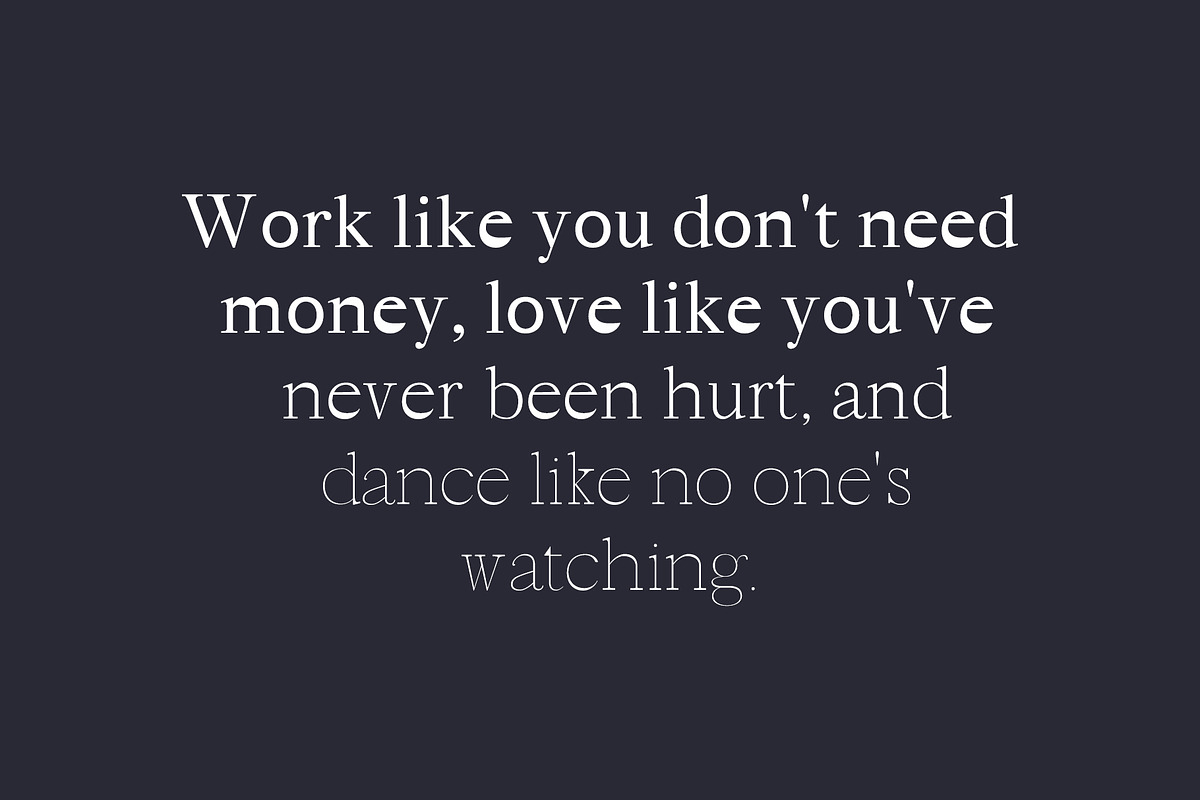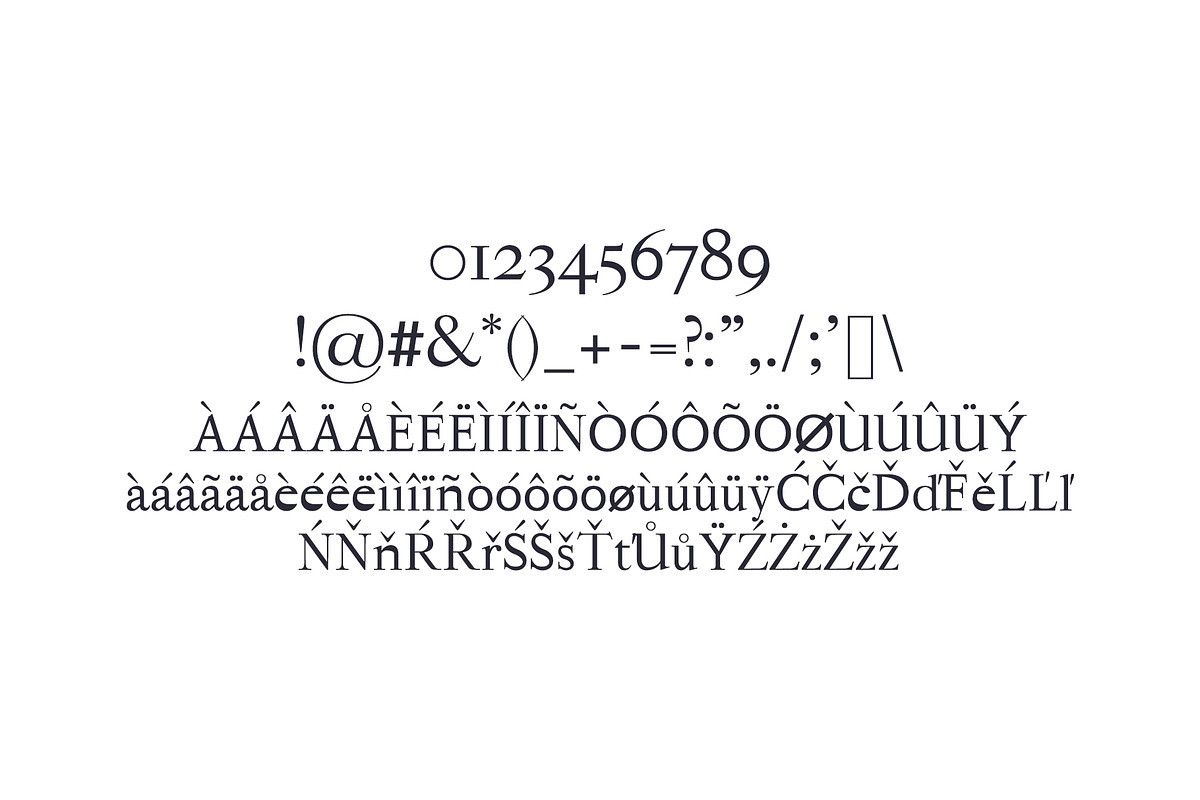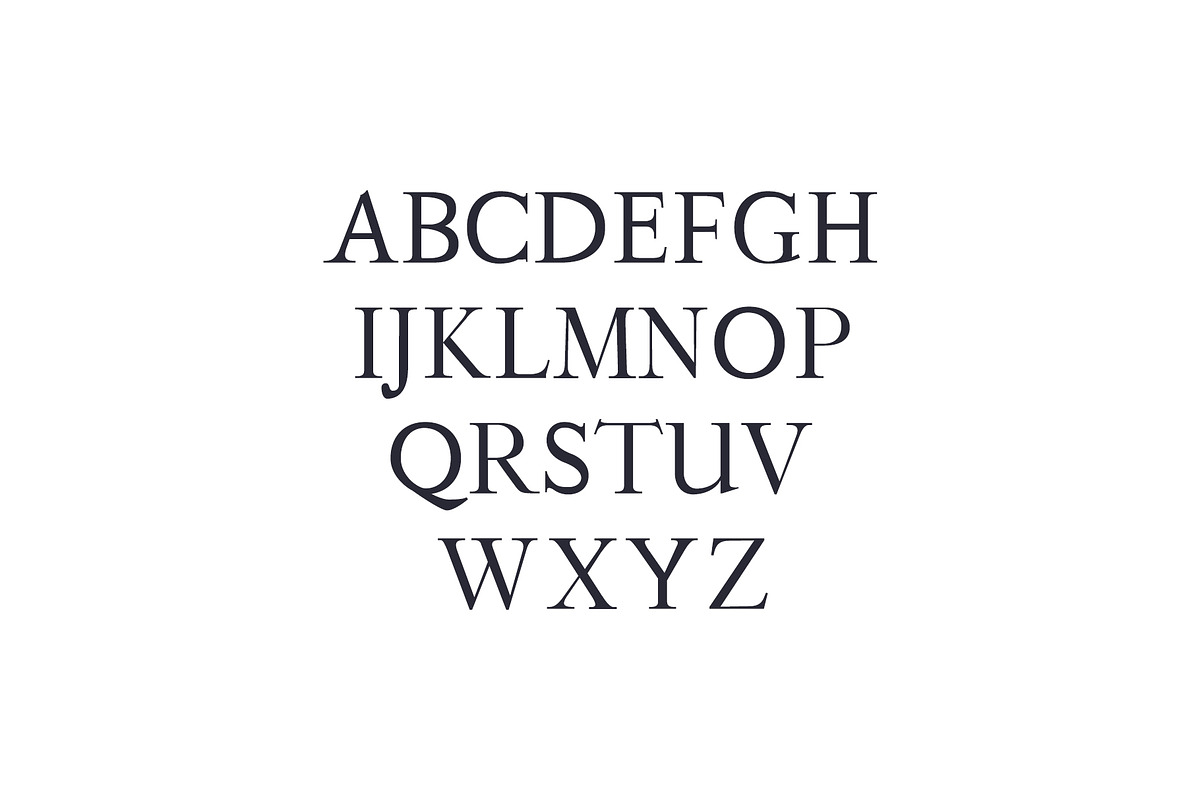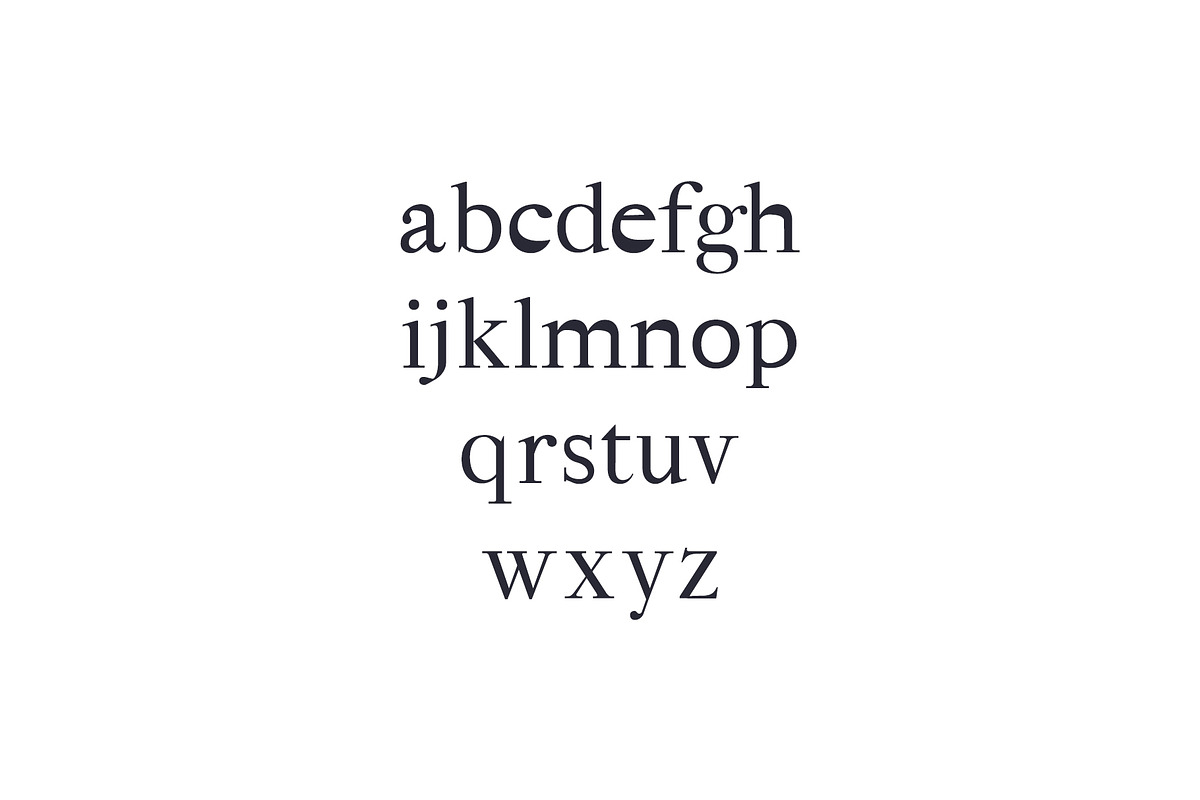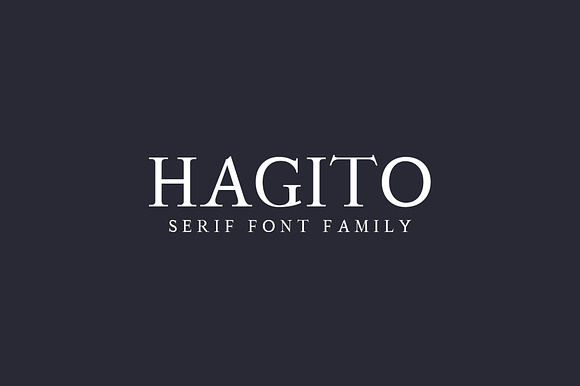
Hagito Serif Font Family Pack
Hagito A Serif Font Family is a strong and fashionable serif font with multiple styles. It has a striking look which makes it perfect for every design that needs to stand out. It features 254 unique glyphs and supports many different languages. Hagito will be great for packaging, presentations, logo, headlines, lettering, posters, branding, quotes, titles, magazines headings, web layouts, advertising, invitations, packaging design, books, and nearly any creative design.
Font Weight: Regular, Light, Thin and Italics
Hagito Serif Font Family Pack by Creativetacos fits naturally into Branding, posters, packaging, typography.